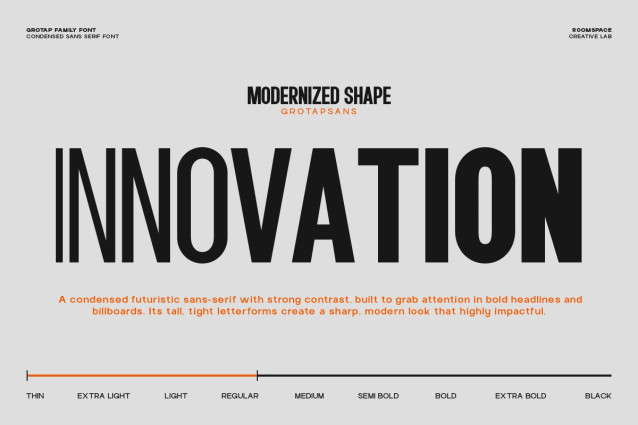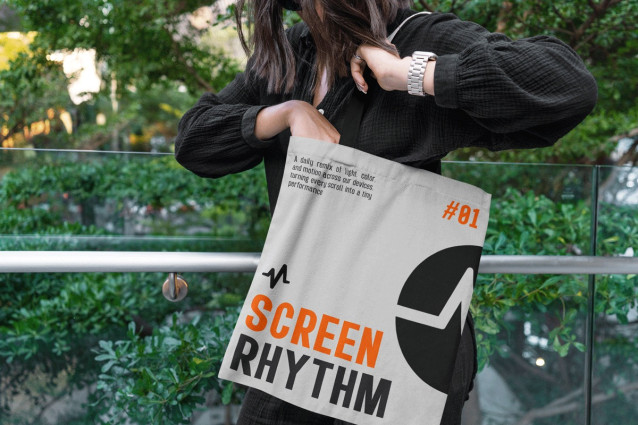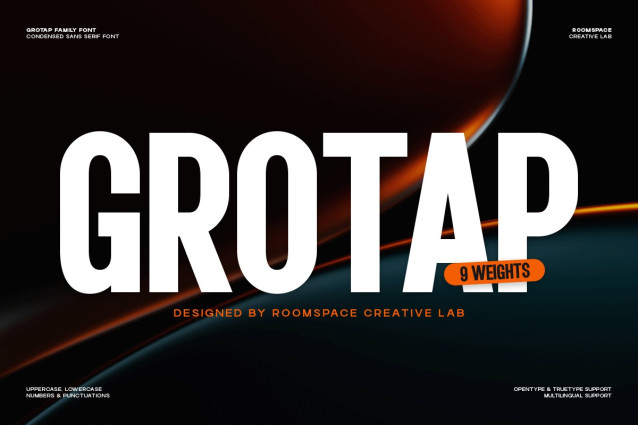
Grotap Font
Grotap Font a condensed sans-serif font family with a bold, modern spirit. Designed for powerful headlines and clean contemporary branding, Grotap delivers sharp vertical rhythm and strong typographic presence. With 9 versatile weights, it adapts beautifully to editorial layouts, posters, packaging, and digital design projects, giving your work a confident, elevated look.